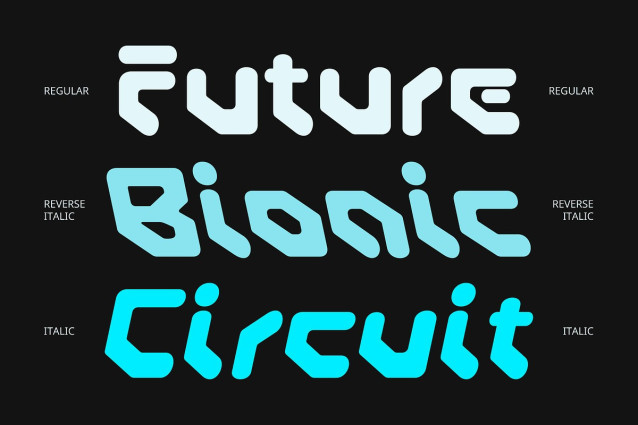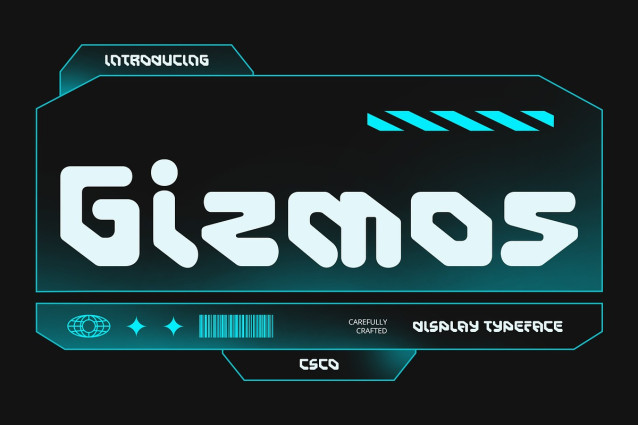
Gizmos Font is a futuristic display font built around bold, rigid geometric shapes that convey a sense of precision and technological advancement. Its sharply defined letterforms reflect a modern, industrial feel that’s perfect for capturing attention in high-tech environments.
Modern and Digital Visual Vibe This font’s strong lines and structured forms evoke a digital aesthetic that feels both daring and contemporary. Gizmos perfectly captures the essence of innovation, making it ideal for projects that want to project a high-tech, forward-thinking identity.
Striking and Bold for Sci-Fi and Tech Projects With its commanding shapes and futuristic personality, Gizmos is perfect for technology-themed branding, sci-fi designs, and experimental graphics. It demands attention while maintaining clarity, making it a standout choice for impactful headlines and logos.
Ideal for Innovative and Progressive Design Whether you’re crafting branding for a startup, designing visuals for a tech event, or exploring futuristic concepts, Gizmos brings a strong, modern look that’s both bold and memorable. It’s a font that pushes boundaries while keeping precision front and center. Gizmos is designed to shine in large sizes, such as headlines, logos, and promotional materials. Its unique blend of modern precision and techno style makes it a versatile choice for designers wanting to push boundaries while maintaining clarity and professionalism.